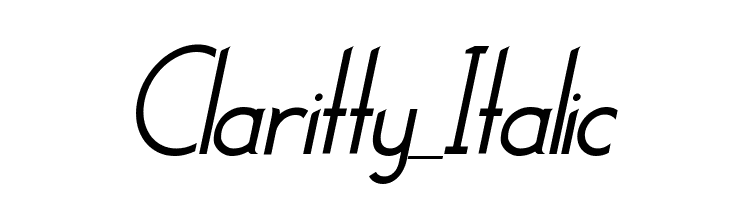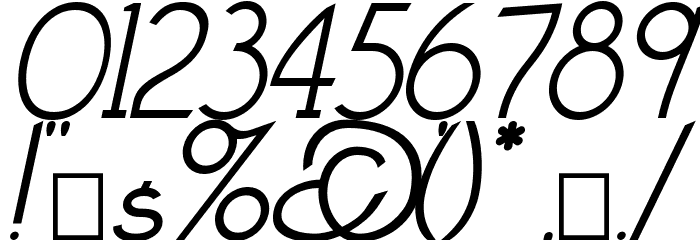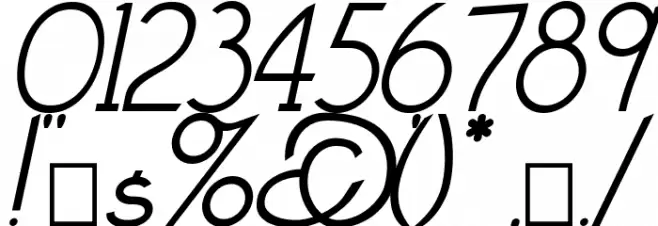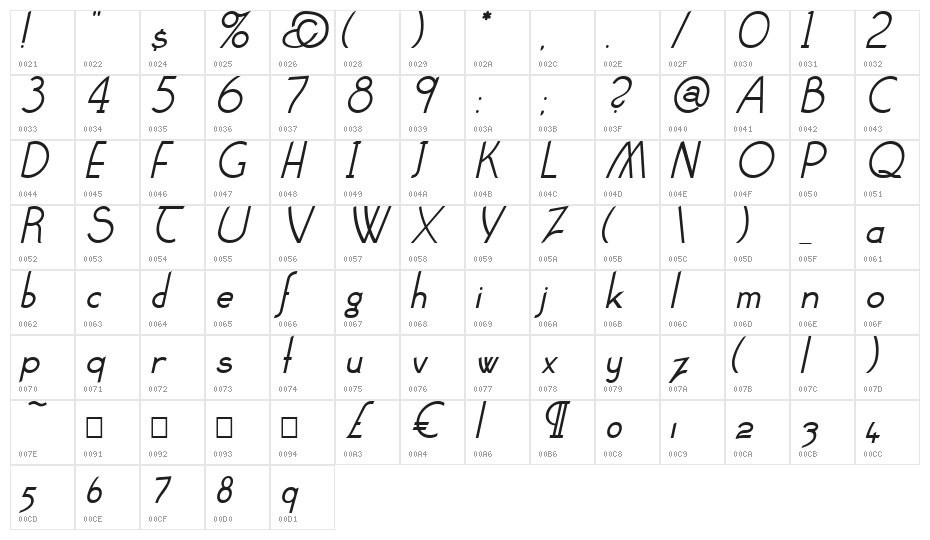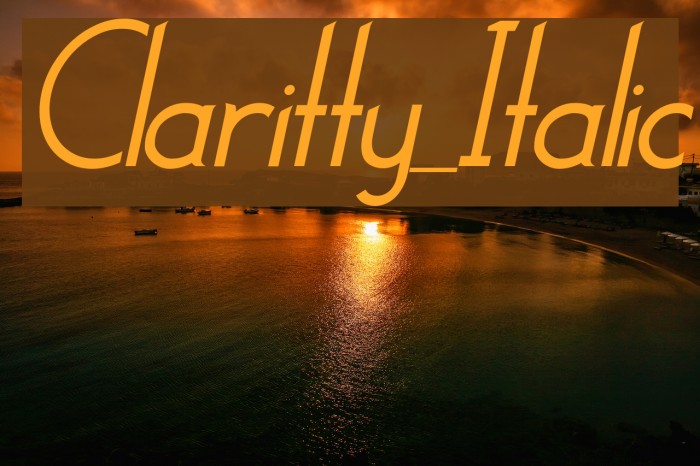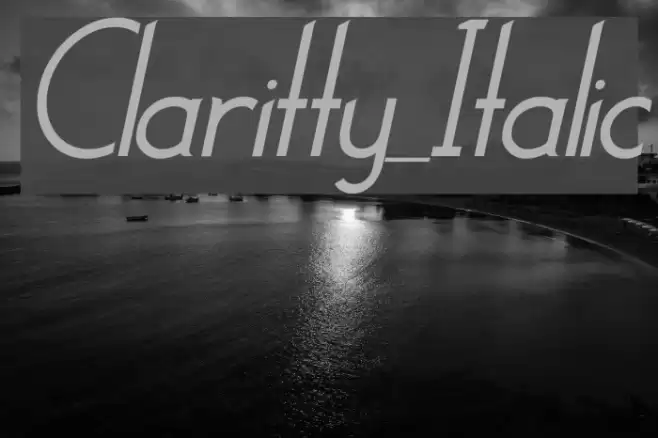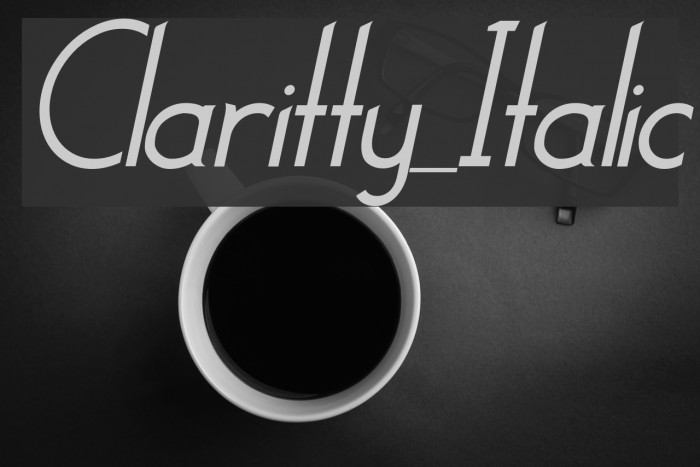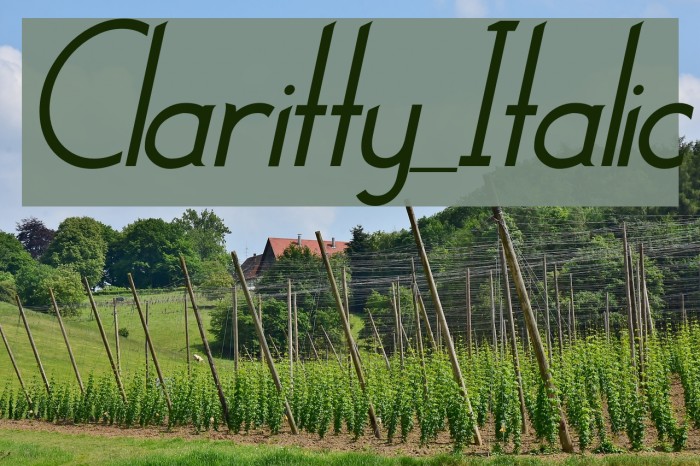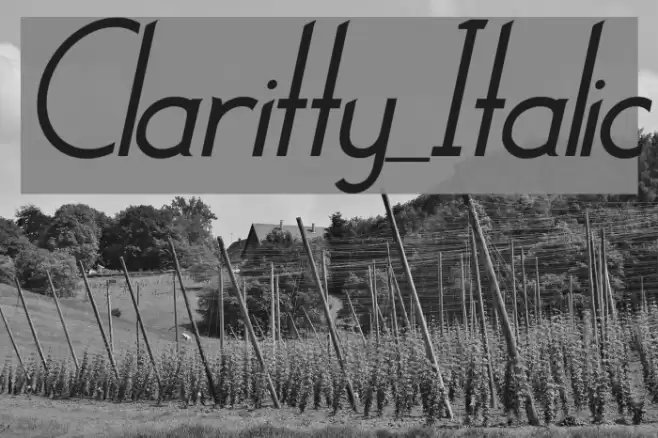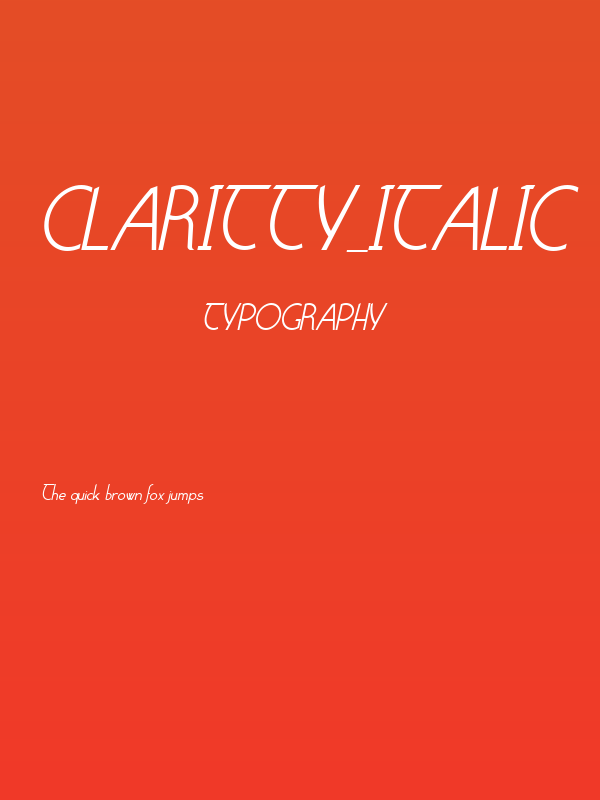
Claritty_Italic Font
Claritty_Italic Description
This font features an elegant and modern italic style with smooth, flowing curves and a slight slant to the right. The uppercase letters are tall and slender, while the lowercase letters maintain a consistent height, offering a harmonious balance. The numerals are distinct and easy to read, with a unique flair that complements the overall design. Special characters are creatively styled, adding a touch of sophistication. The font's clean lines and subtle curves make it versatile for various design applications.
| Overall Style | Modern, Elegant |
| Proposed Projects | Ideal for branding projects, elegant invitations, modern logos, and stylish editorial designs. |